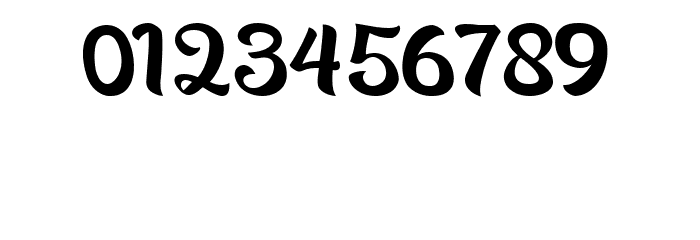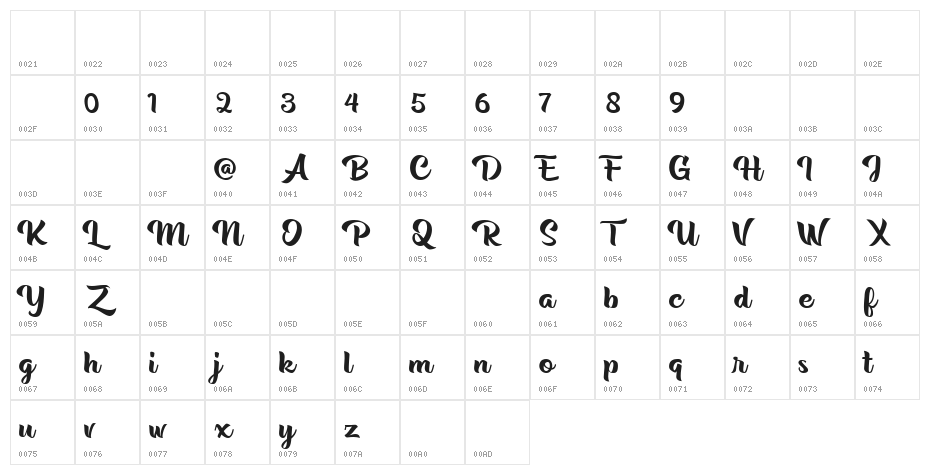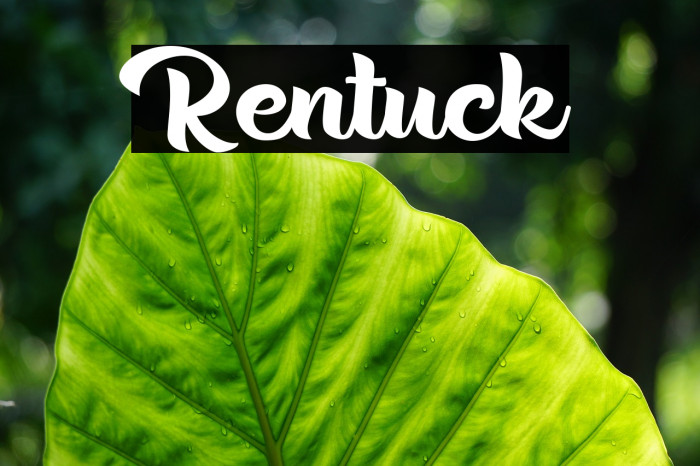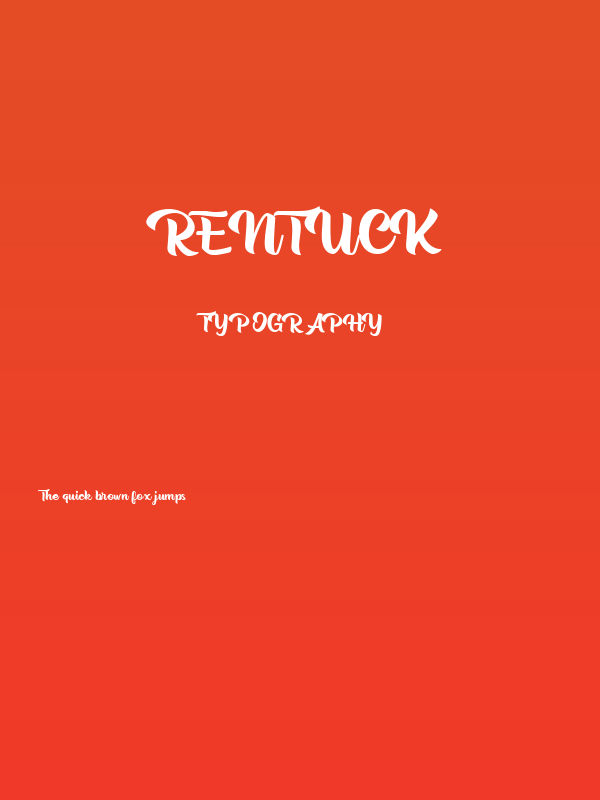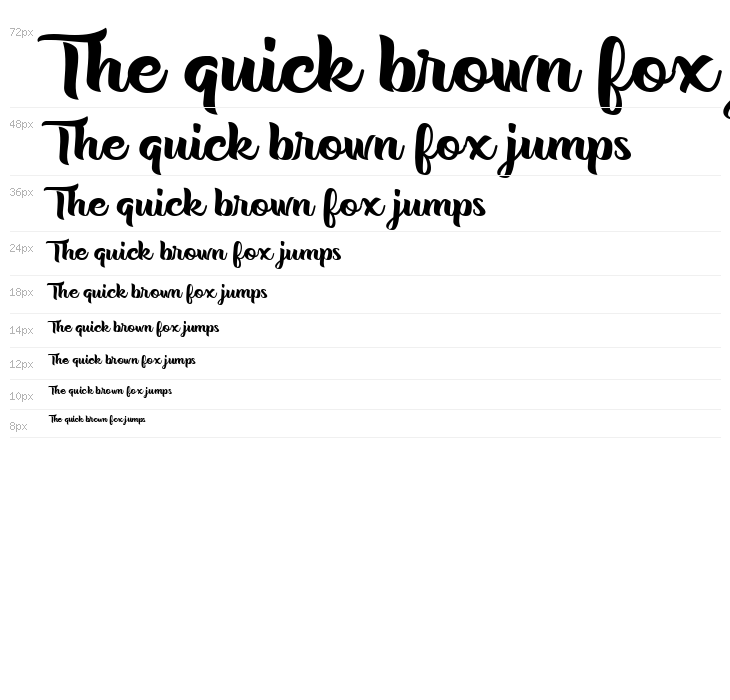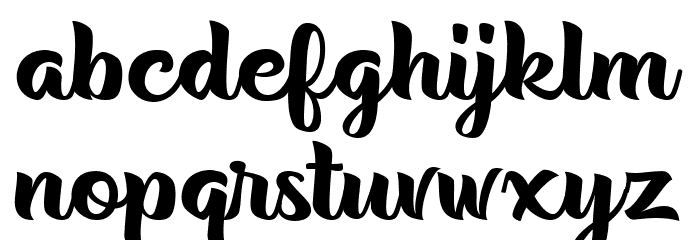
Rentuck Font
Rentuck Description
This font features a bold, flowing script style that combines elegance with a playful touch. The characters are connected, creating a smooth and continuous flow that is visually appealing. The uppercase letters are slightly more ornate, with flourishes that add a touch of sophistication. The lowercase letters maintain a consistent style, with rounded edges and a slight slant that enhances readability. The numbers are clear and bold, matching the overall aesthetic of the font. This style is perfect for projects that require a personal, handwritten feel while maintaining a professional appearance.